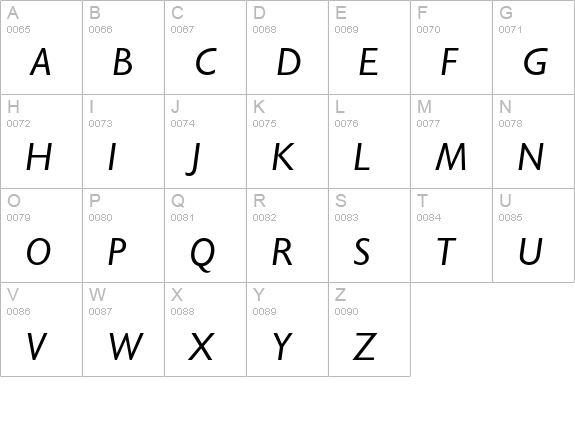
Garrison Sans ITALIC is a distinctive, italic variant in the Garrison typeface family \xE2\x80\x94 well suited to design and typography projects.
Garrison Sans ITALIC is a modern and sleek typeface that exudes sophistication and elegance. Its stylish italic design adds a touch of flair to any project, making it perfect for branding, editorial design, and more. The unique letterforms of Garrison Sans ITALIC are both eye-catching and easy to read, making it versatile for a wide range of applications. What sets Garrison Sans ITALIC apart is not only its aesthetic appeal but also its accessibility. This font is freely available to download at FontsMarket.com, allowing designers and creatives to access this high-quality typeface without any hassle. Whether you're working on a print project or a digital design, Garrison Sans ITALIC is sure to elevate your work with its modern and sophisticated look.